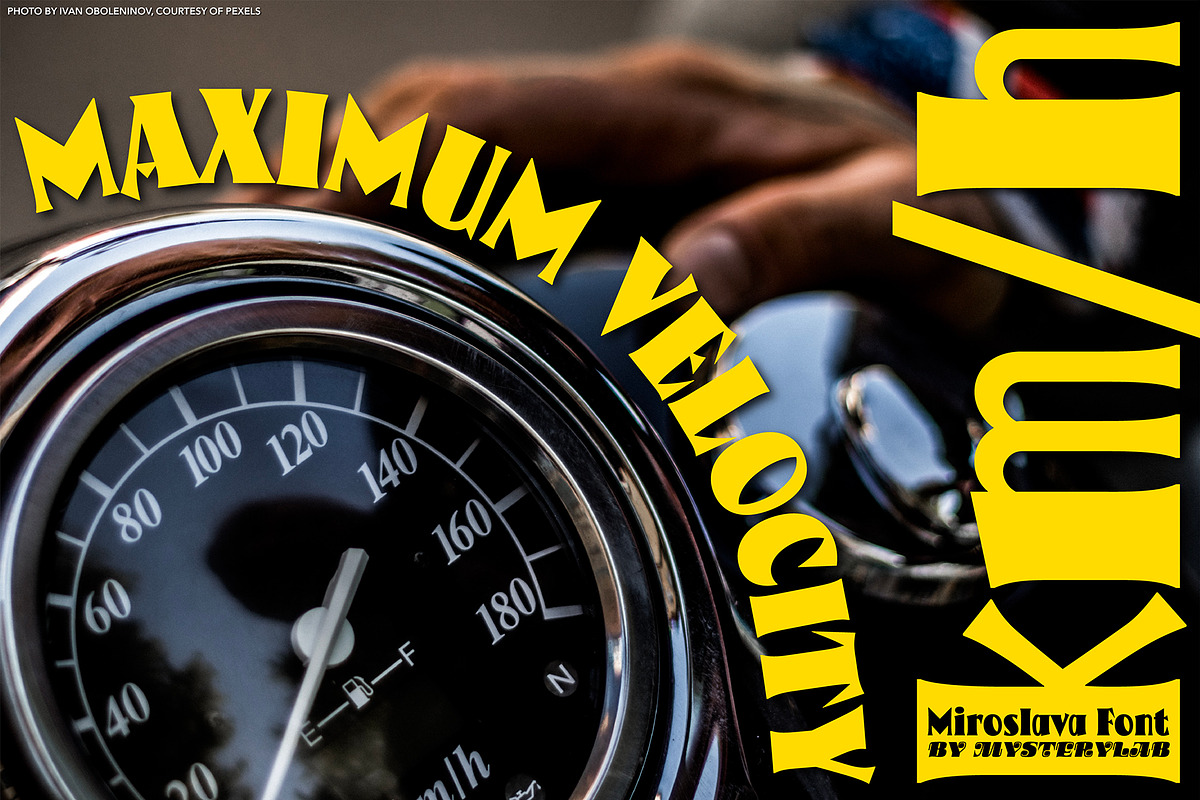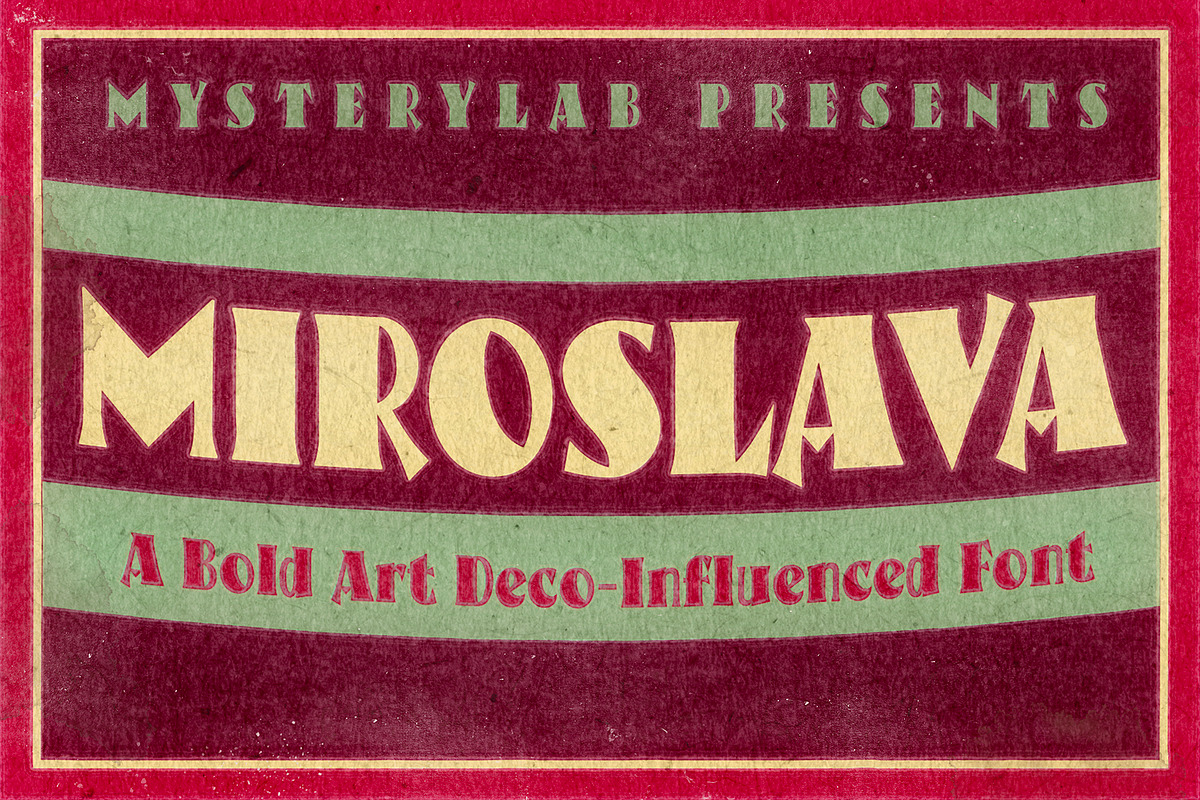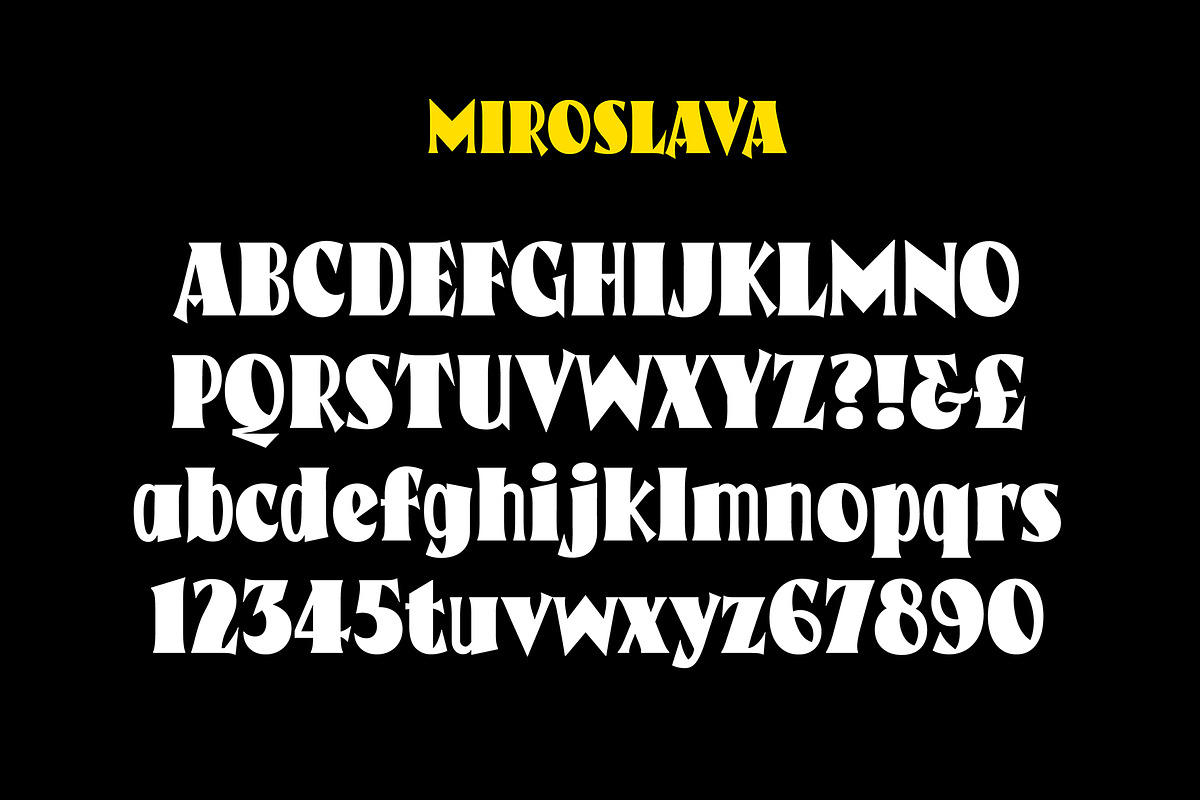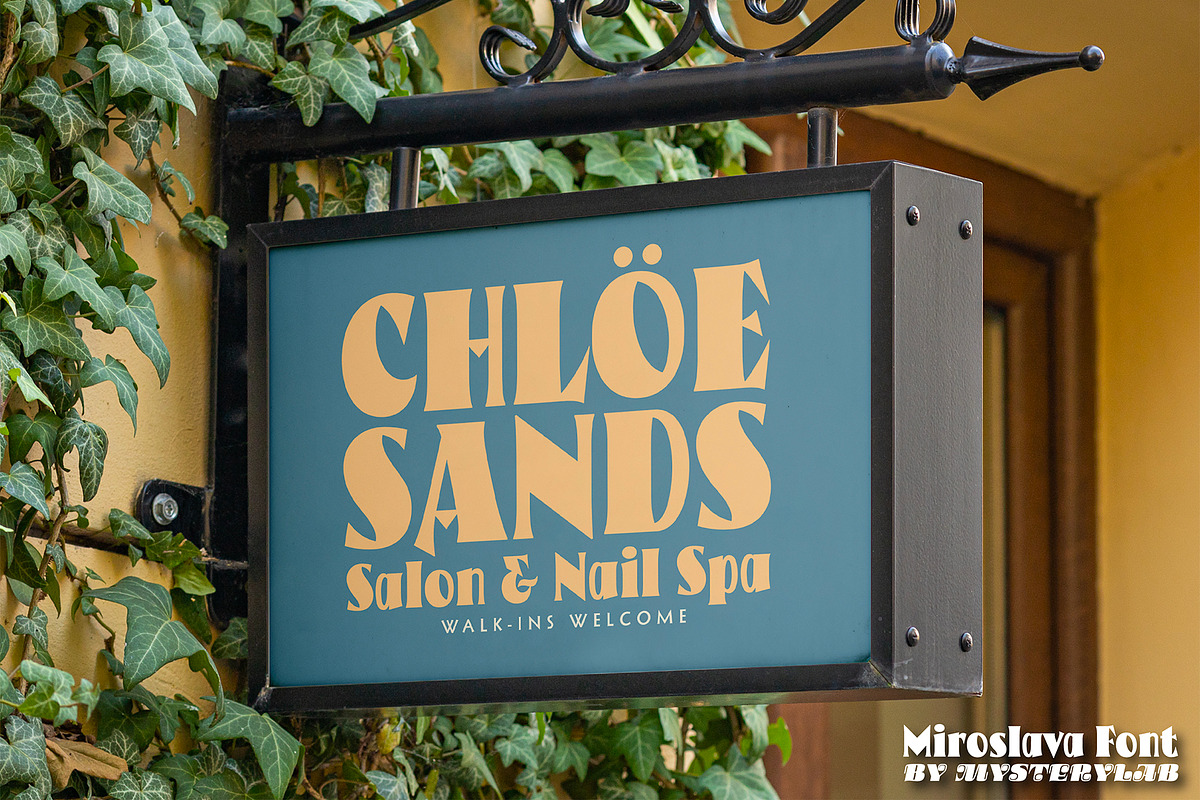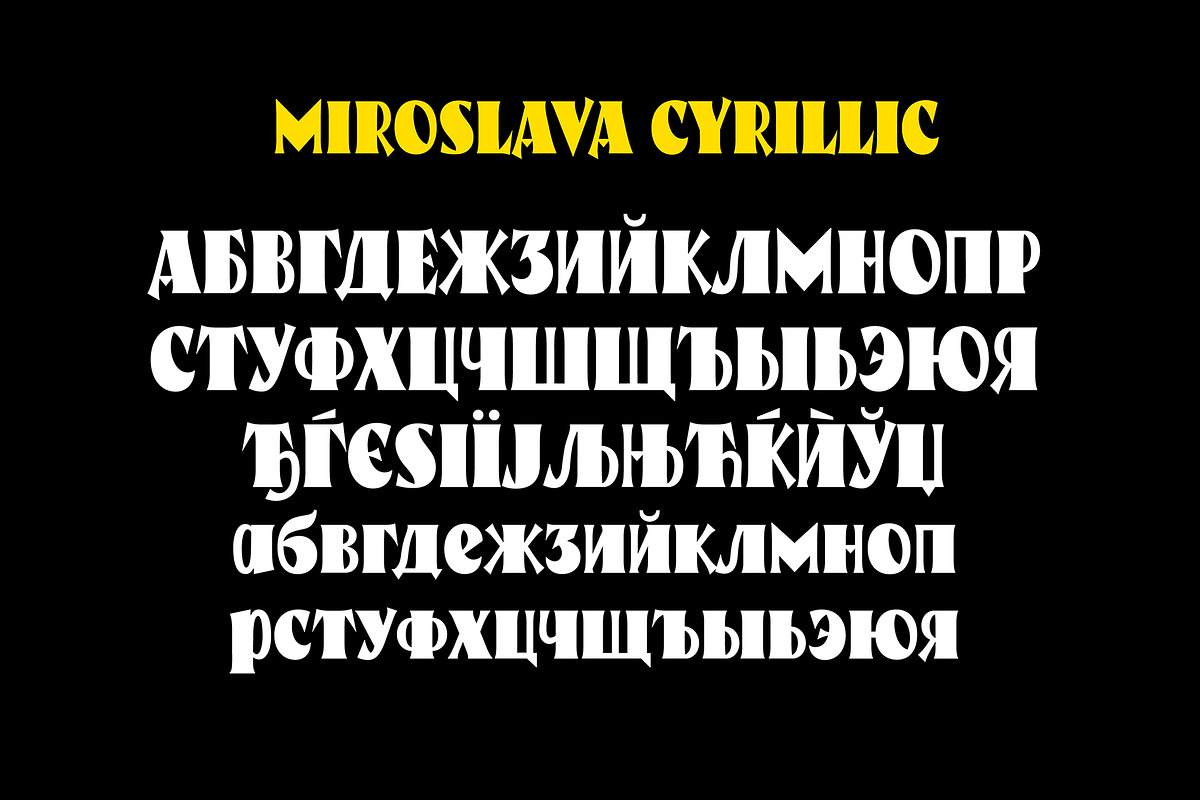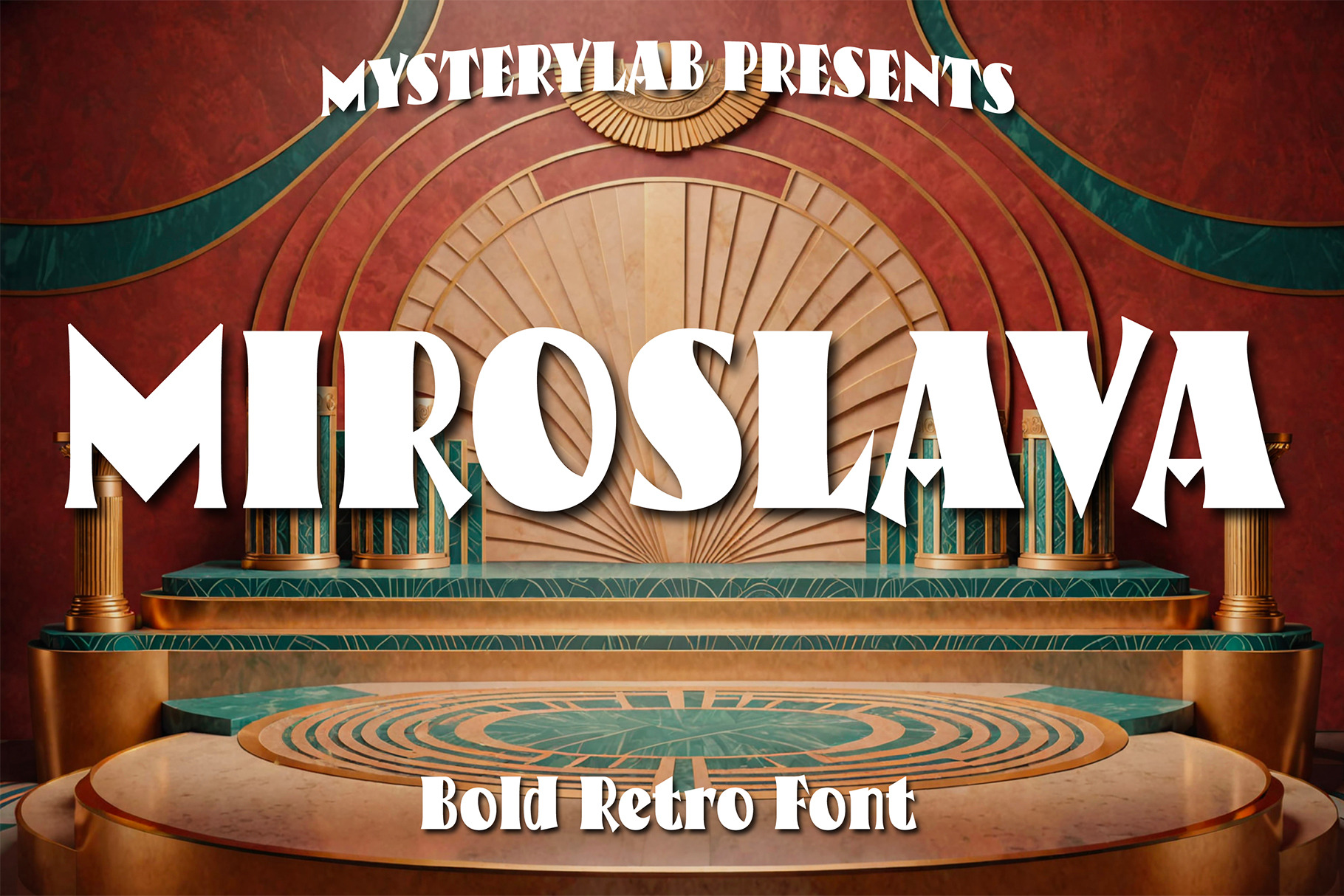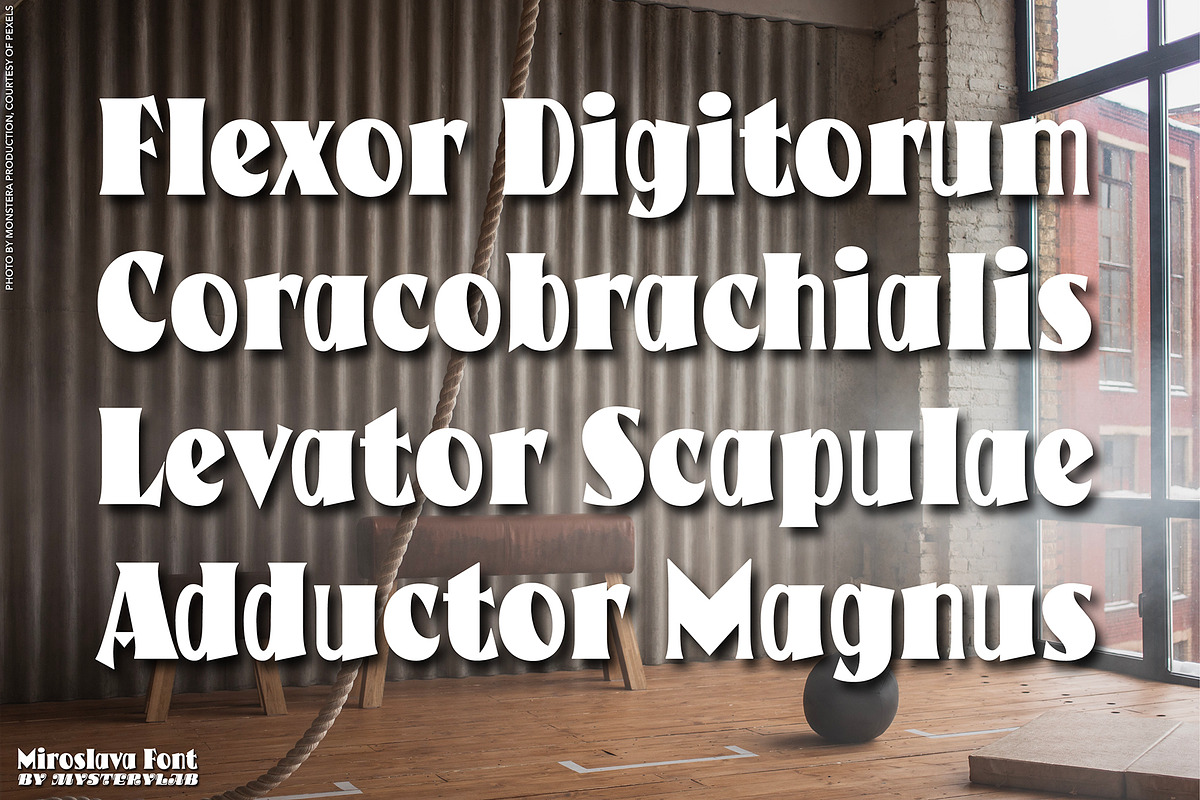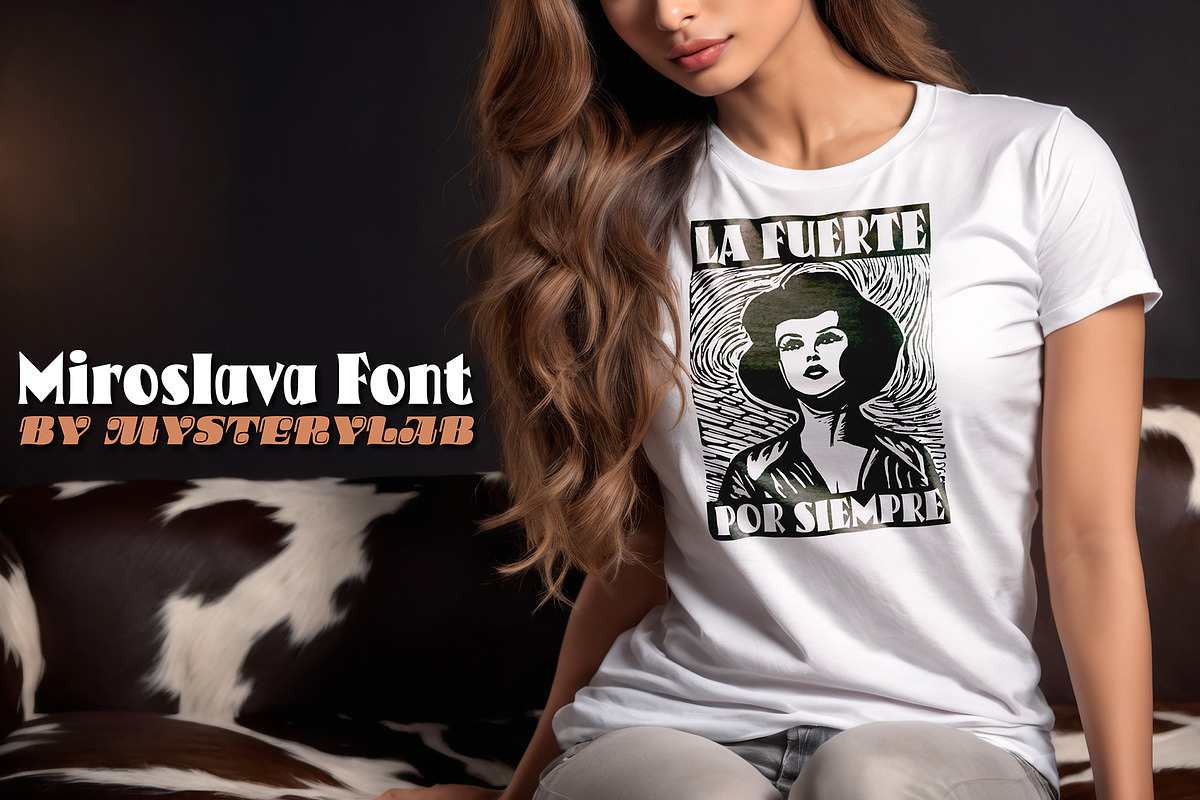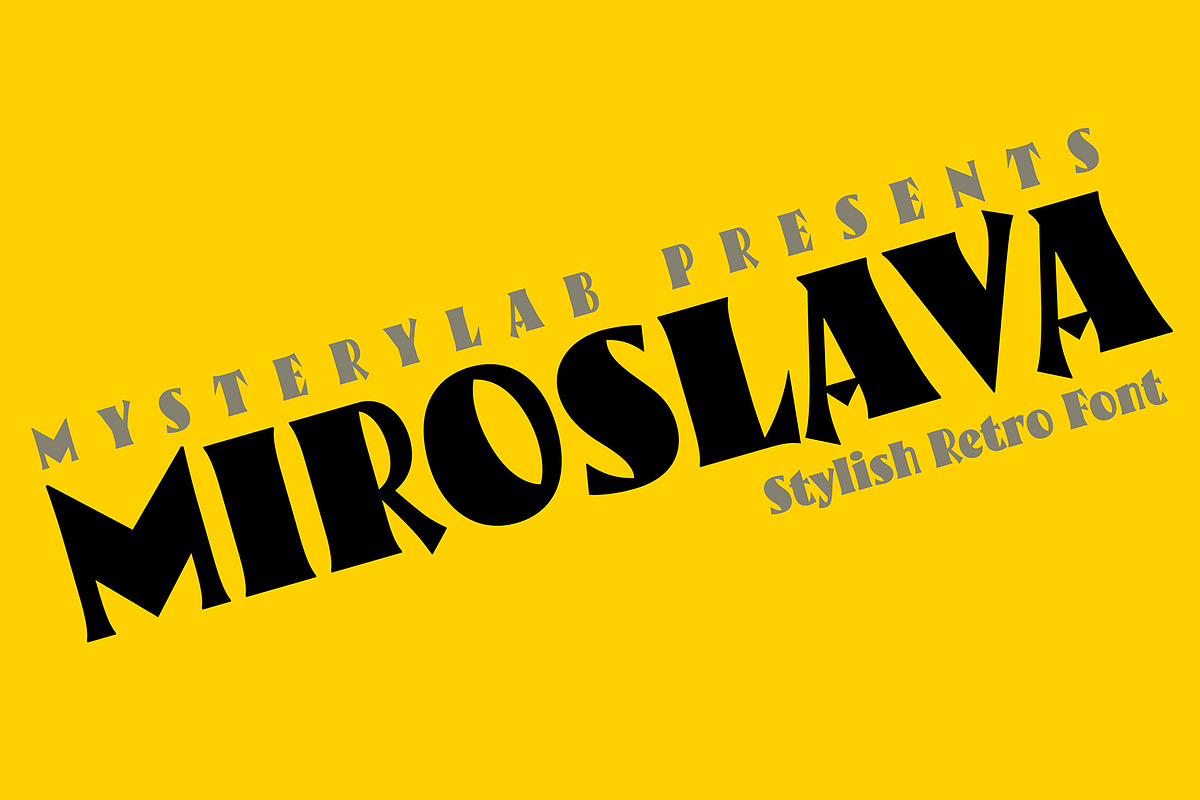
Miroslava Font
Miroslava is a modern bold serif with roots in art deco lettering and German expressionism. It’s a solid choice for bold poster design, with its lively interplay of thick and thin strokes, as well as sharp-bladed embellishments and tapered serifs. The contrast of brutalist simplicity and alluring details can make this font really shine as an eye-catching choice for branding and marketing, on product labeling and web banners. Miroslava also features the full complement of Cyrillic alphabet glyphs as well as German, Polish, Icelandic, and others.